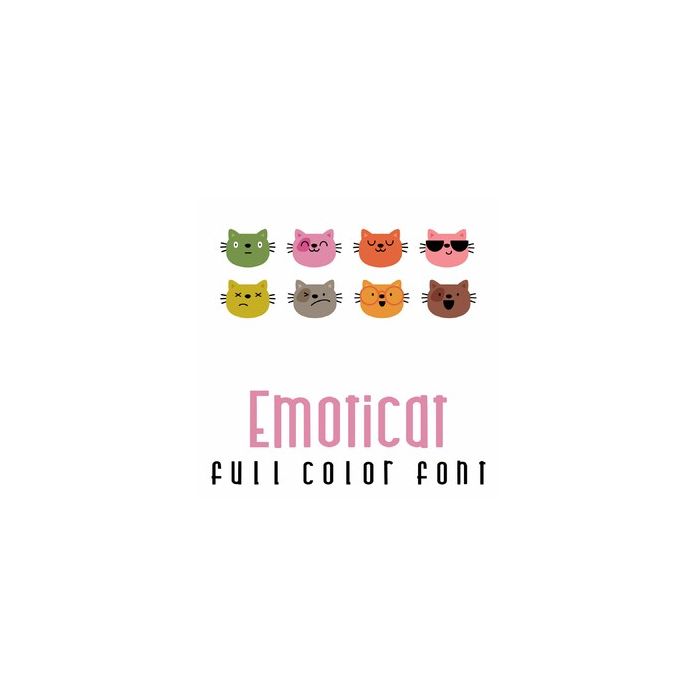
This adorable full color font features 26 cat emojis. Find the perfect face to express just how you're feeling. Perfect for cards, crafts, decor, planner stickers, parties, scrapbook pages and more!